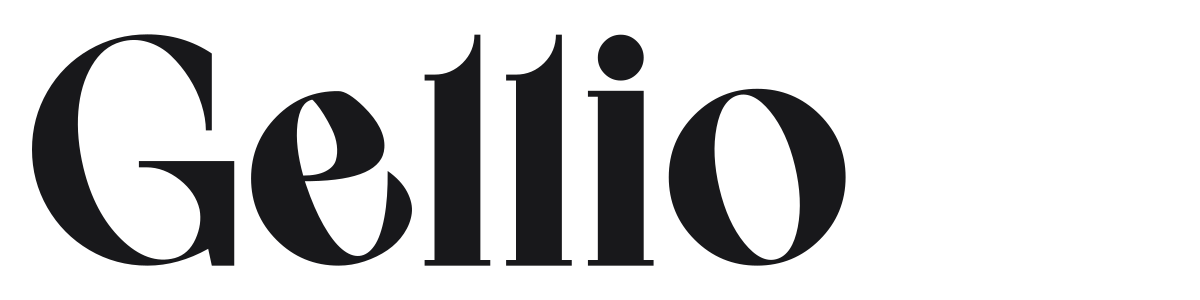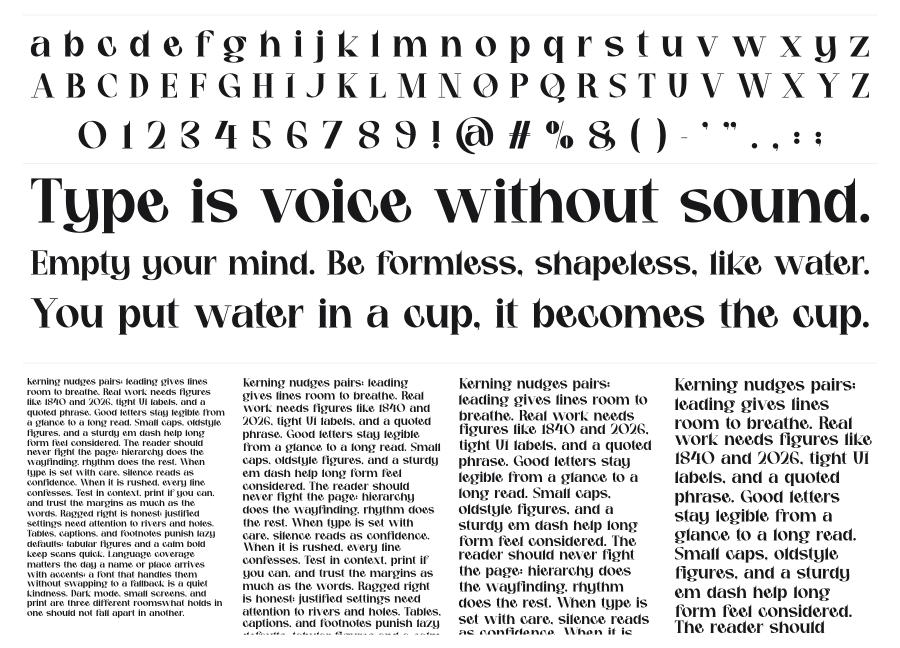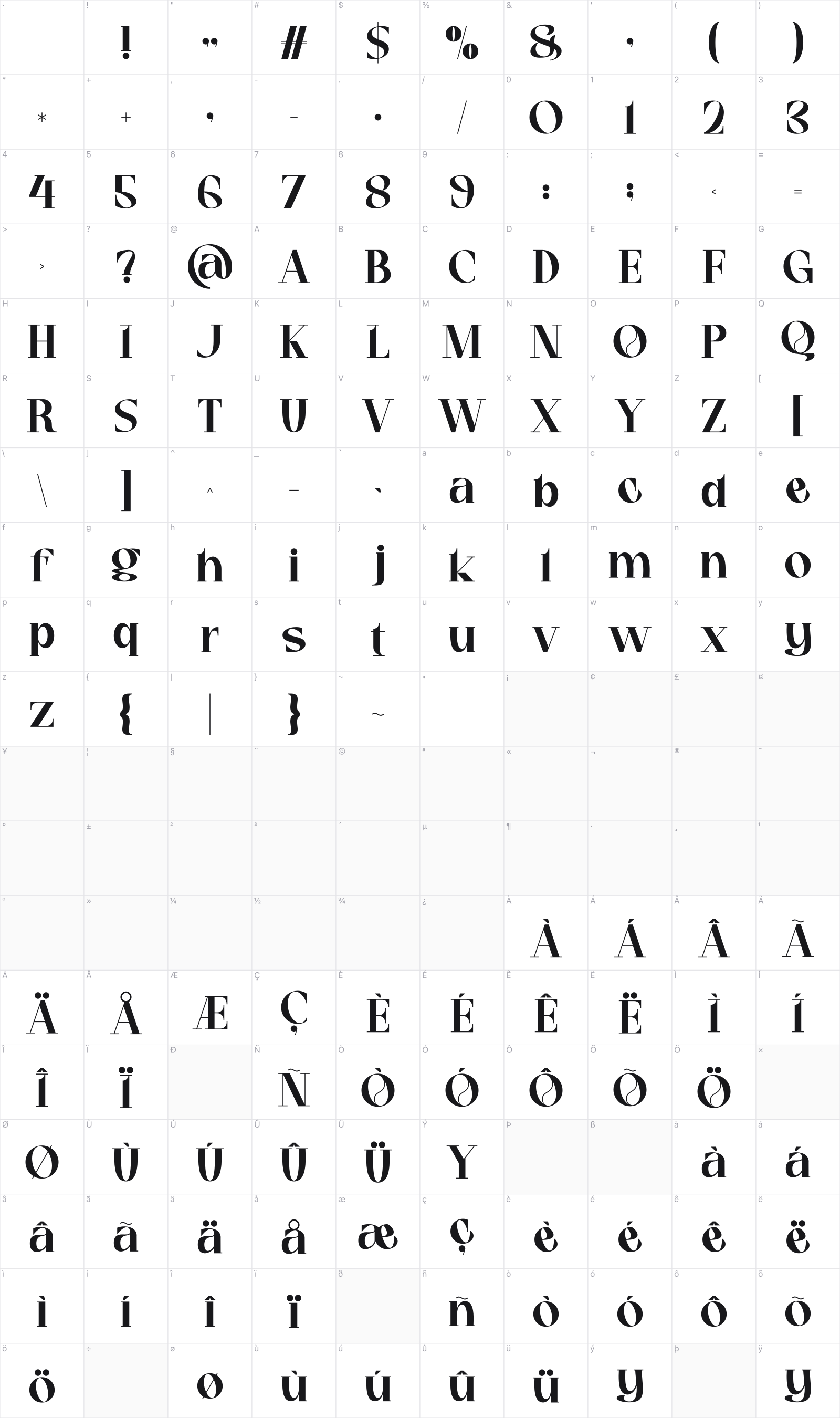
Gellio
Gellio is a bold modern serif with dramatic Didone-style stroke contrast and generous, wide proportions. The sharp transition between thick stems and hairline strokes gives it a strong editorial energy, the kind that reads instantly at large sizes. It fits naturally in fashion branding, magazine headers, and luxury packaging.